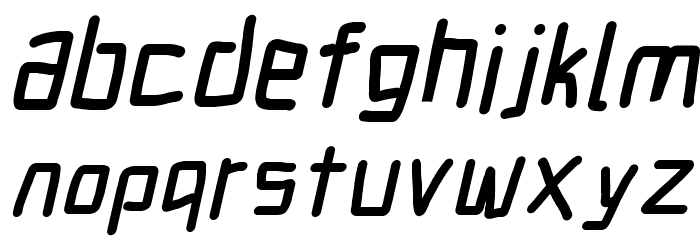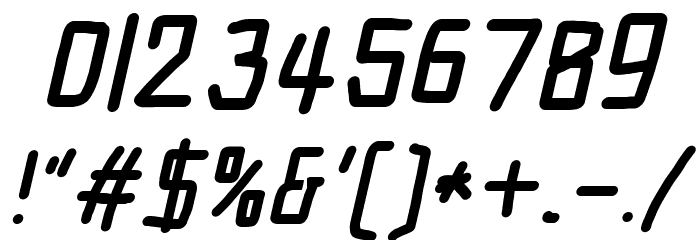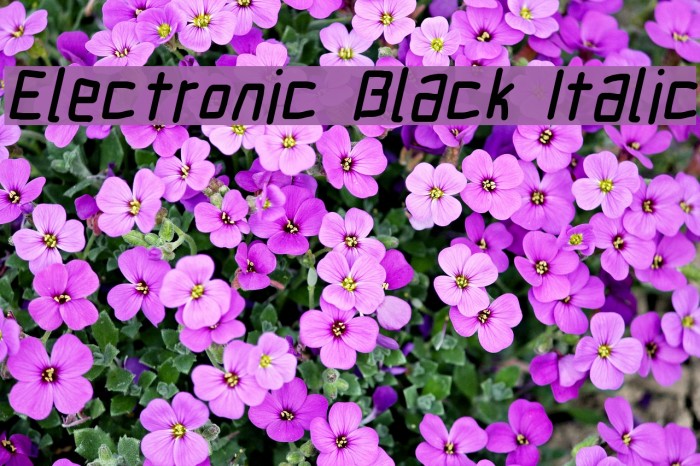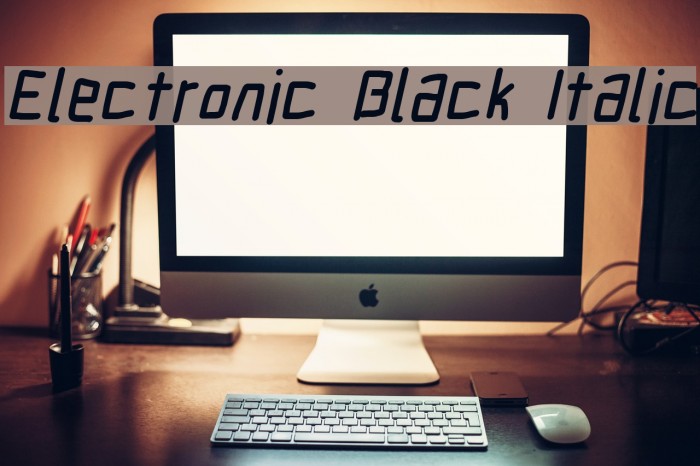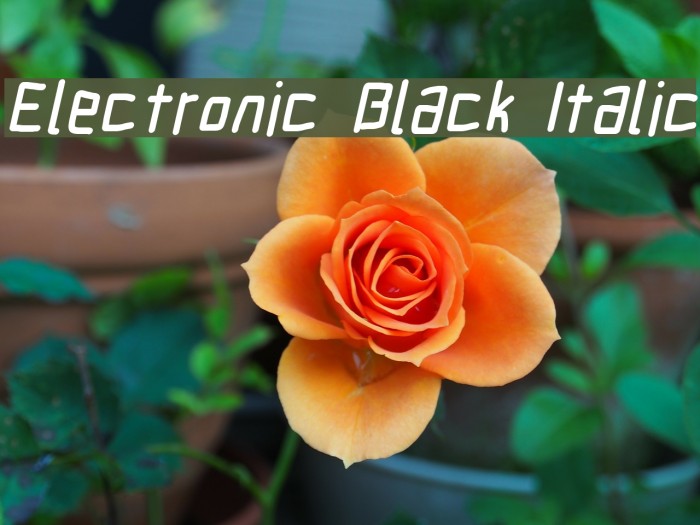
Electronic Black Italic Font
This font features a bold, italicized style with a modern and electronic feel. The characters are slightly condensed, giving it a compact appearance. The strokes are thick and consistent, providing a strong presence on the page. The angular design of the letters adds a dynamic and futuristic touch, making it suitable for tech-related projects. The spacing between characters is tight, enhancing the cohesive look of the text. The overall style is sleek and contemporary, ideal for making a bold statement.
A bold, italicized font with a modern, electronic style and tight spacing.
- Proposed Projects: Ideal for technology branding, futuristic designs, digital interfaces, and modern advertising.
- Character Spacing: Tight
- Use Case: Headlines, Logos, Digital Interfaces